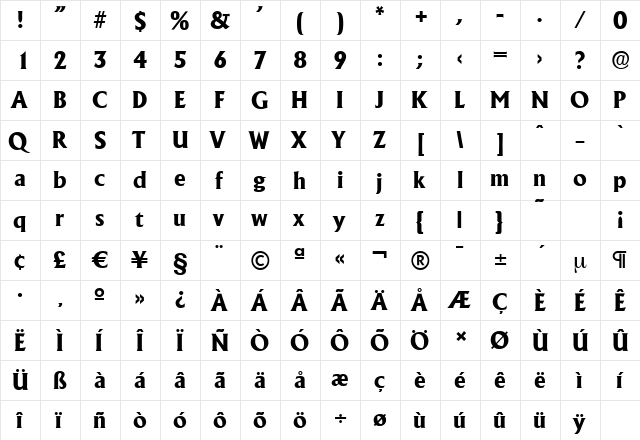
AdelonSerial-Xbold Regular
Design Context for AdelonSerial-Xbold Typeface
AdelonSerial-Xbold takes a measured approach to typography — its balanced proportions and neutral character make it a reliable workhorse for both digital and print work. The heavy weight commands attention and anchors typographic hierarchies.